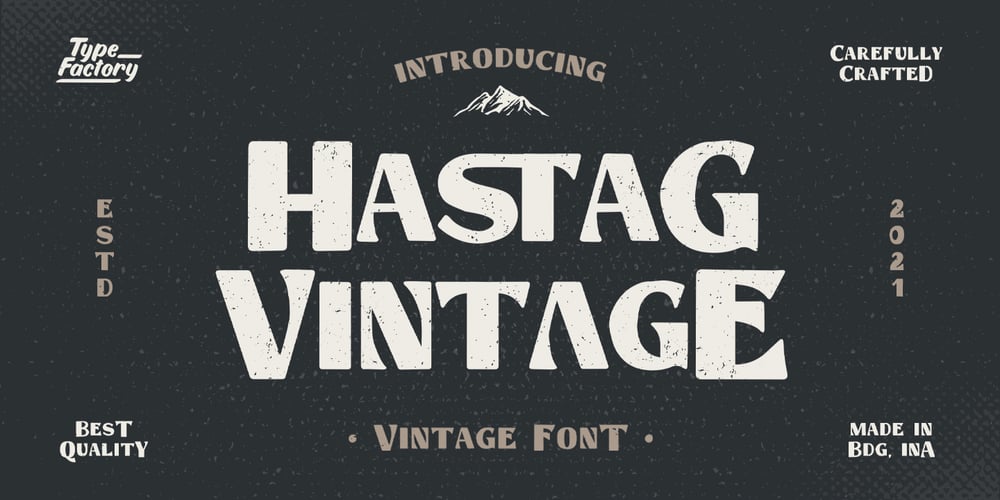
Hastag Vintage Font Family was designed by Hilmius Akbar and published by Typefactory. Hastag Vintage contains 1 styles and family package options. Hastag is a vintage display font that was made by hand and inspired by classic posters. Hastag comes with uppercase, small caps, numerals, symbols & punctuations, alternate, ligature and multilingual support.Perfect to use for Logotype, Letterhead, Poster, Apparel Design, Labels, and many more designs.